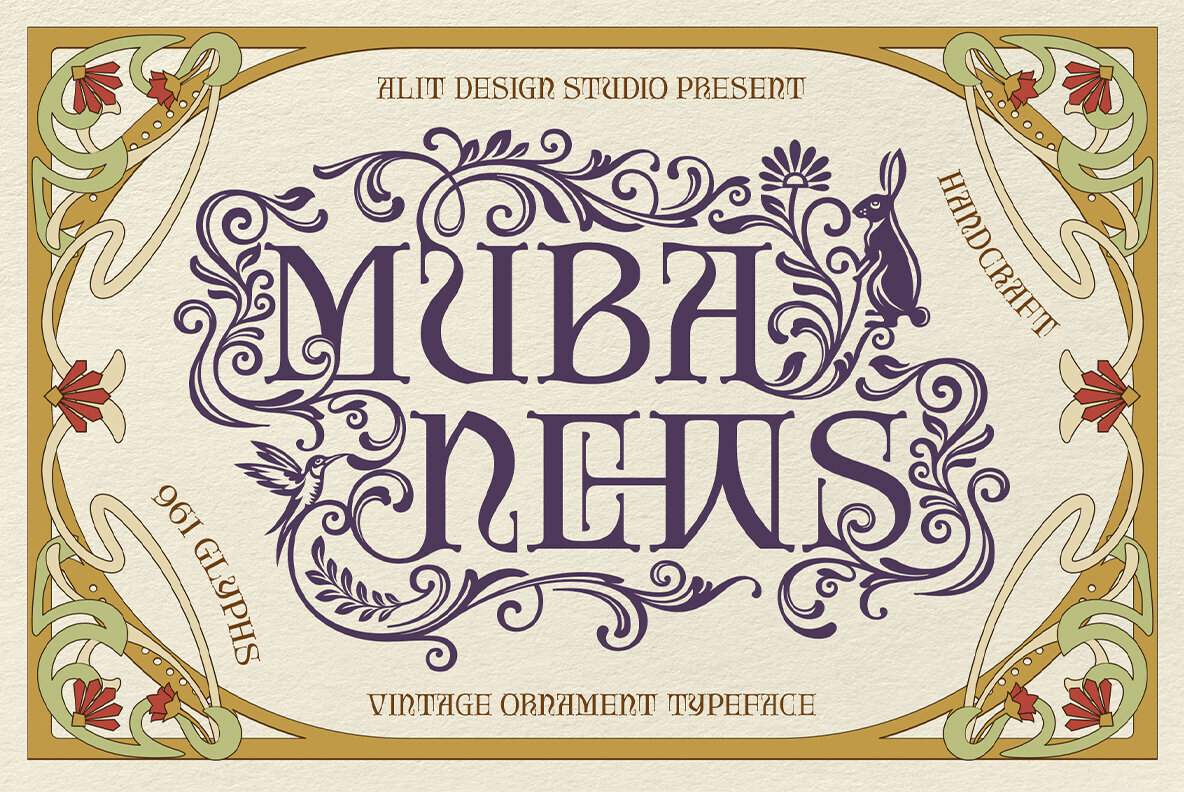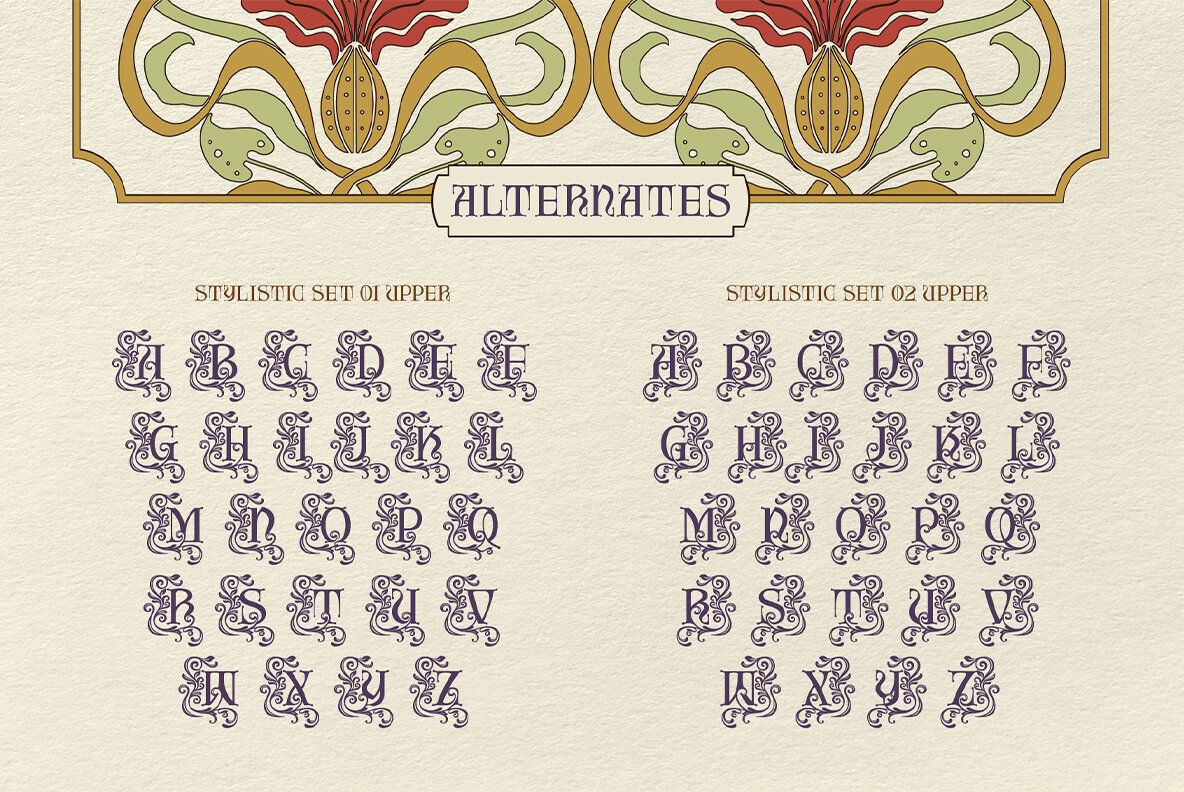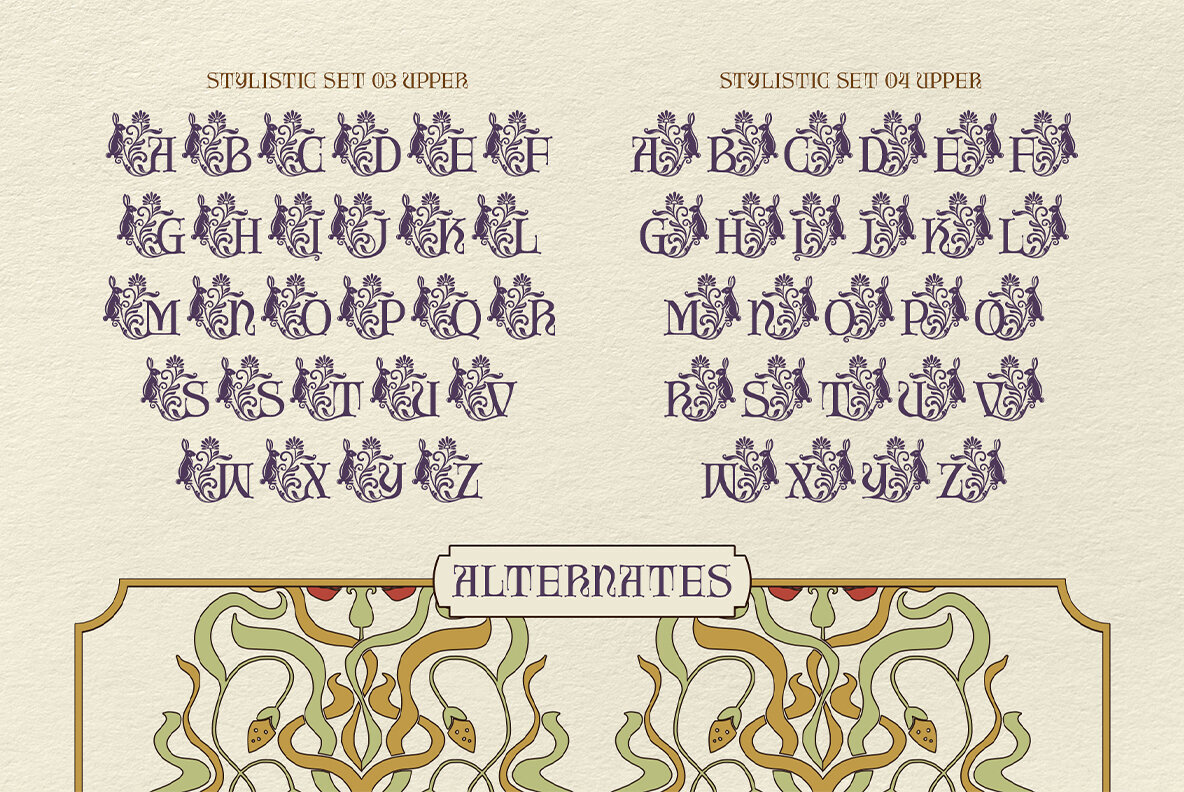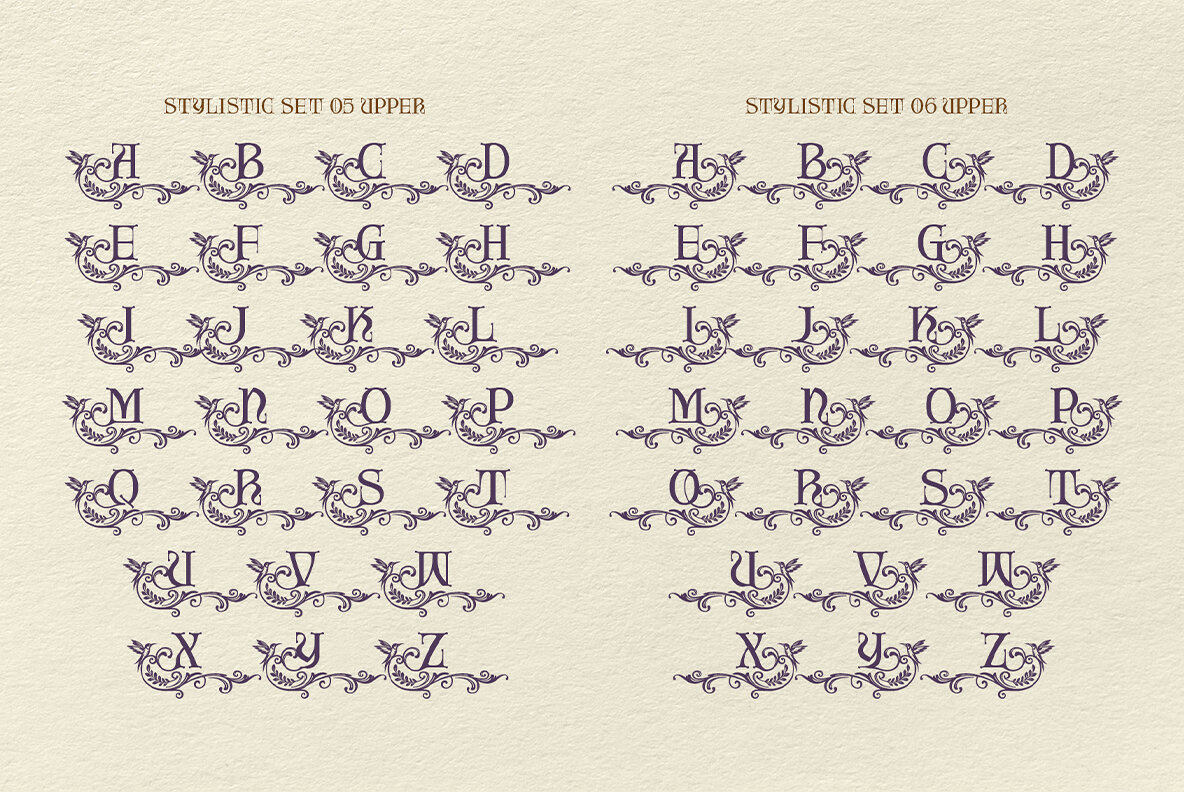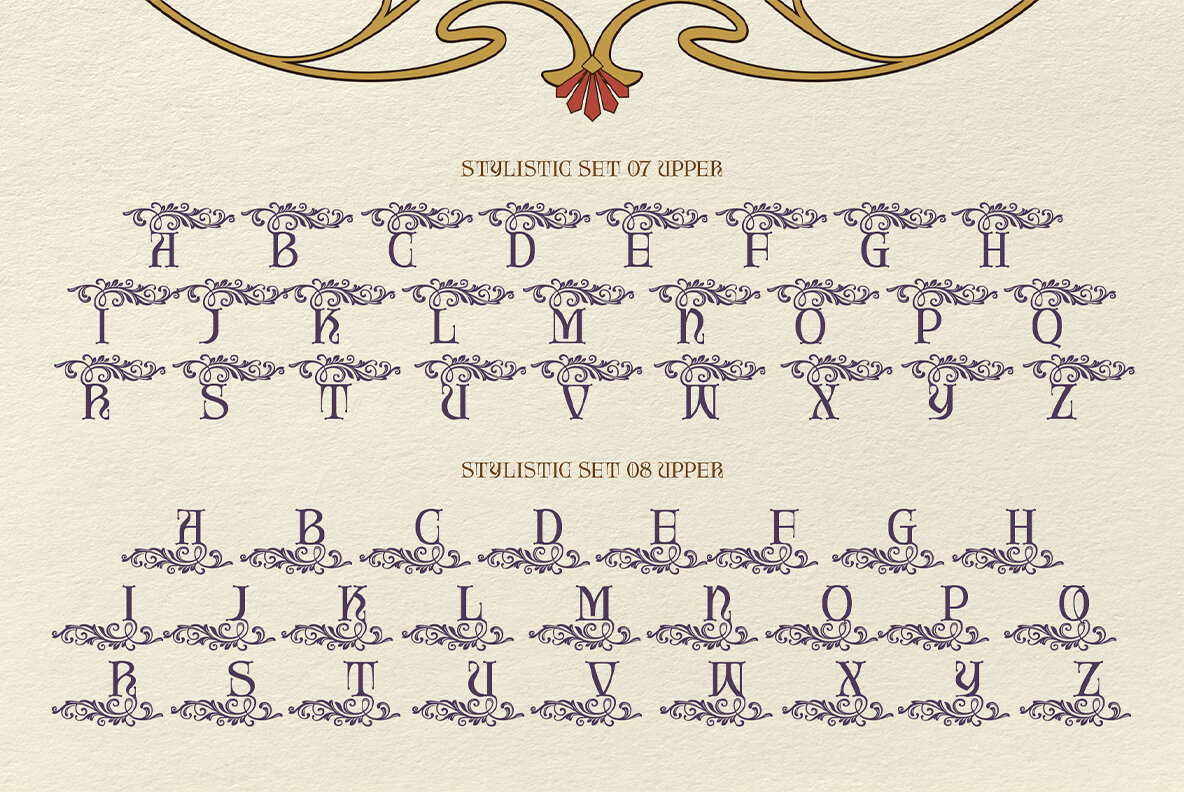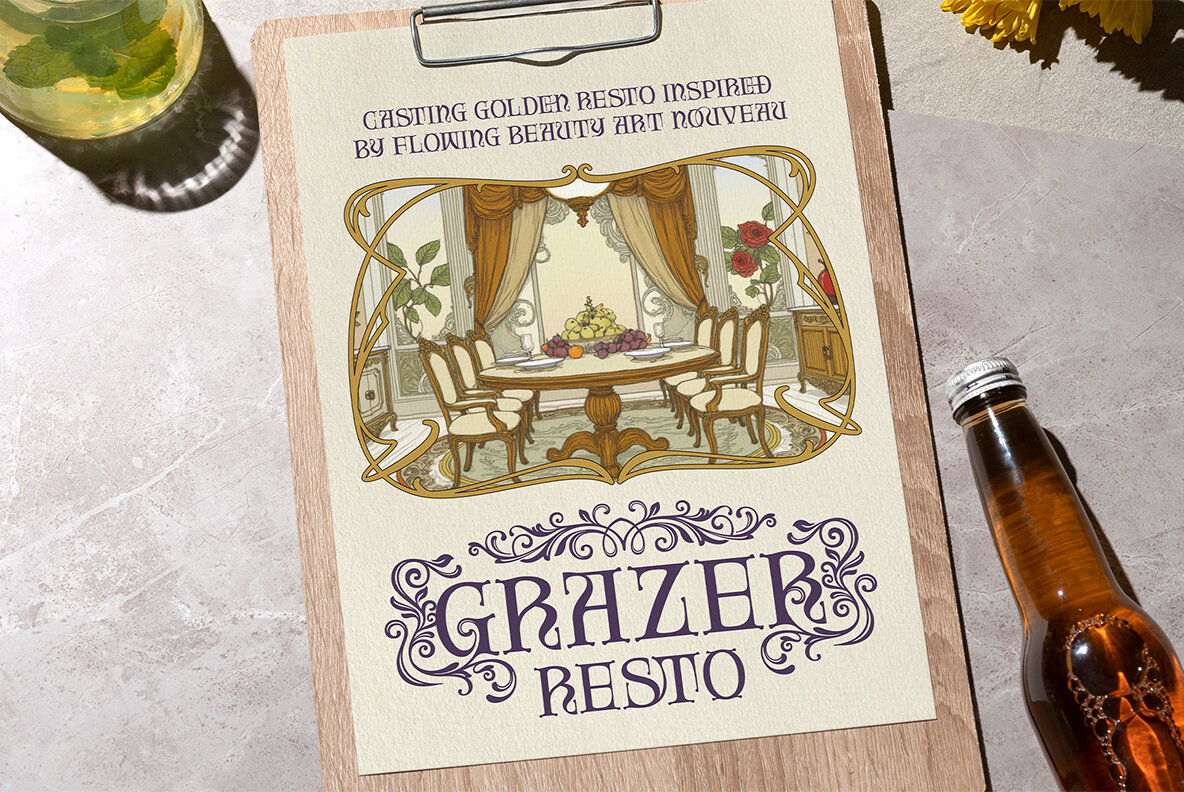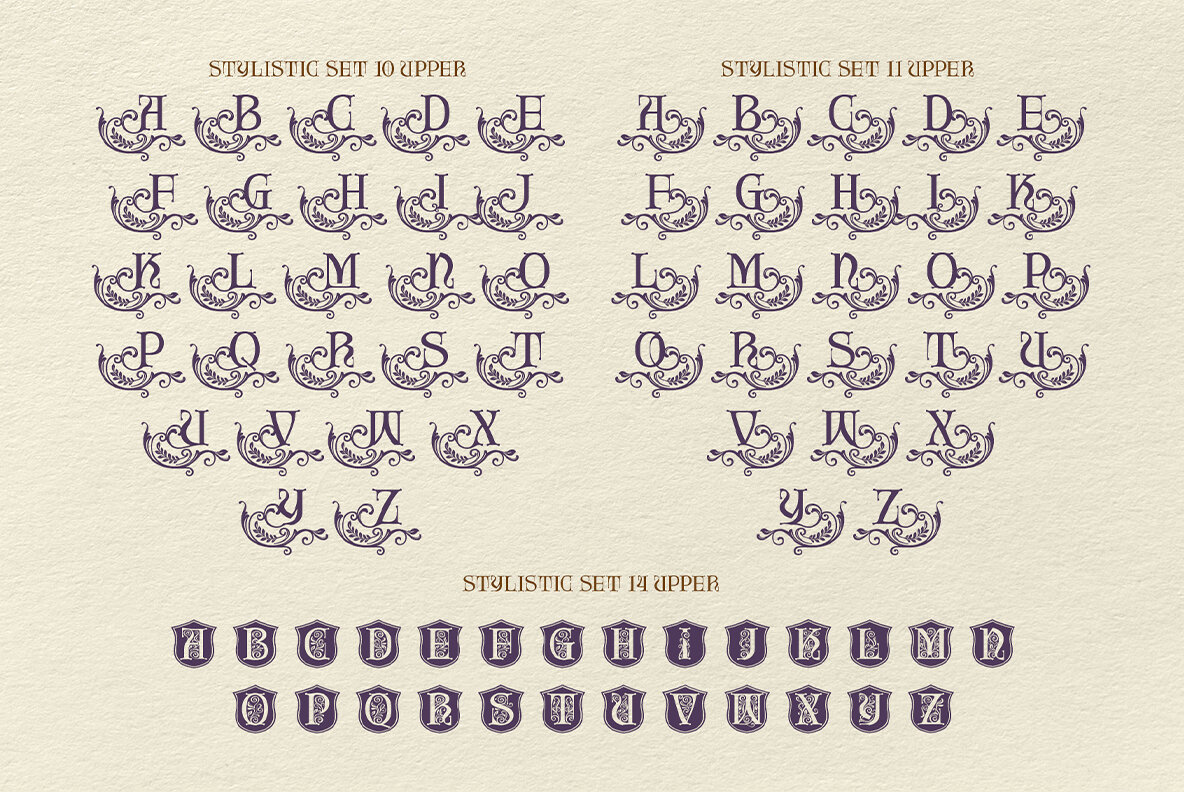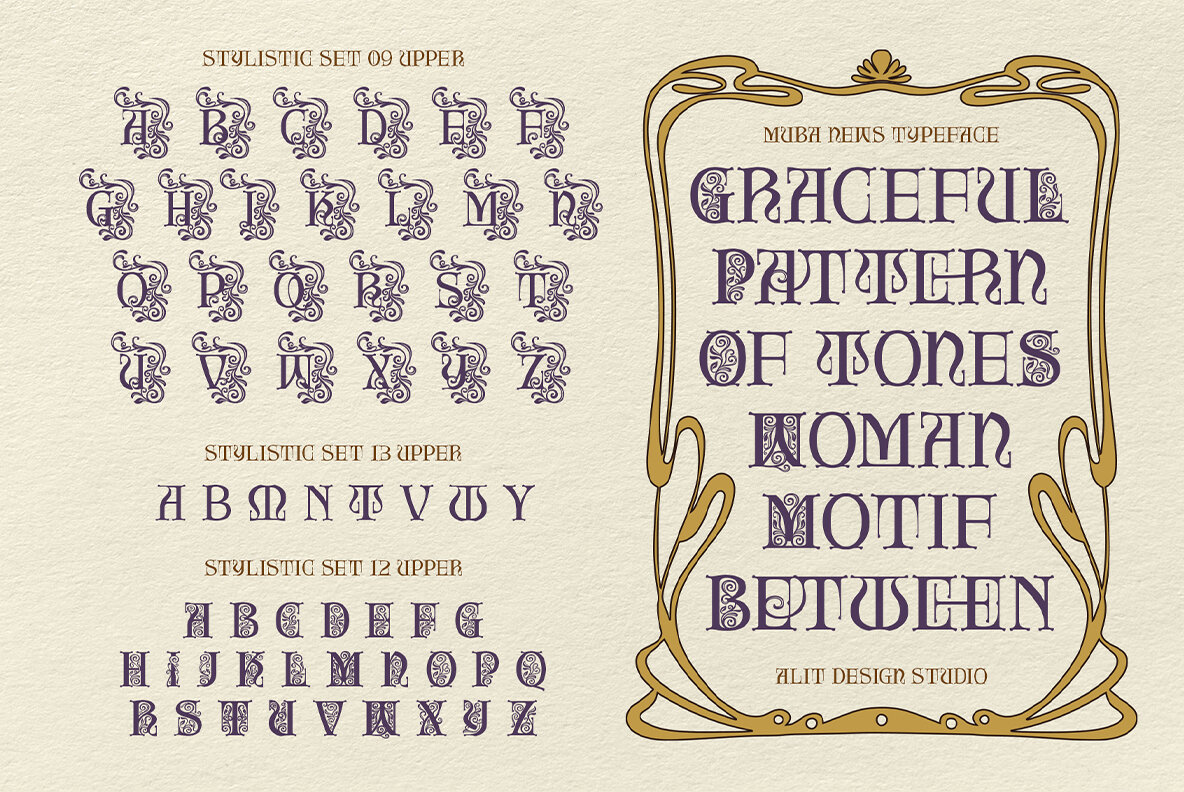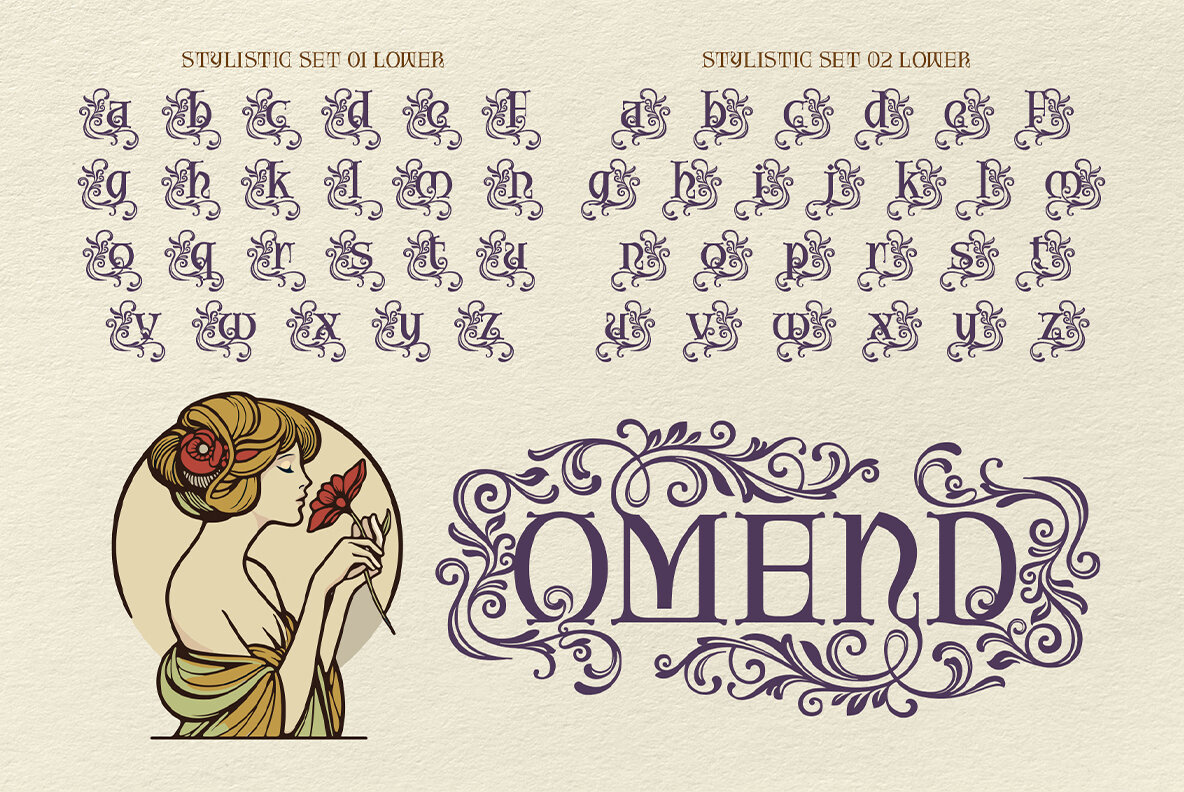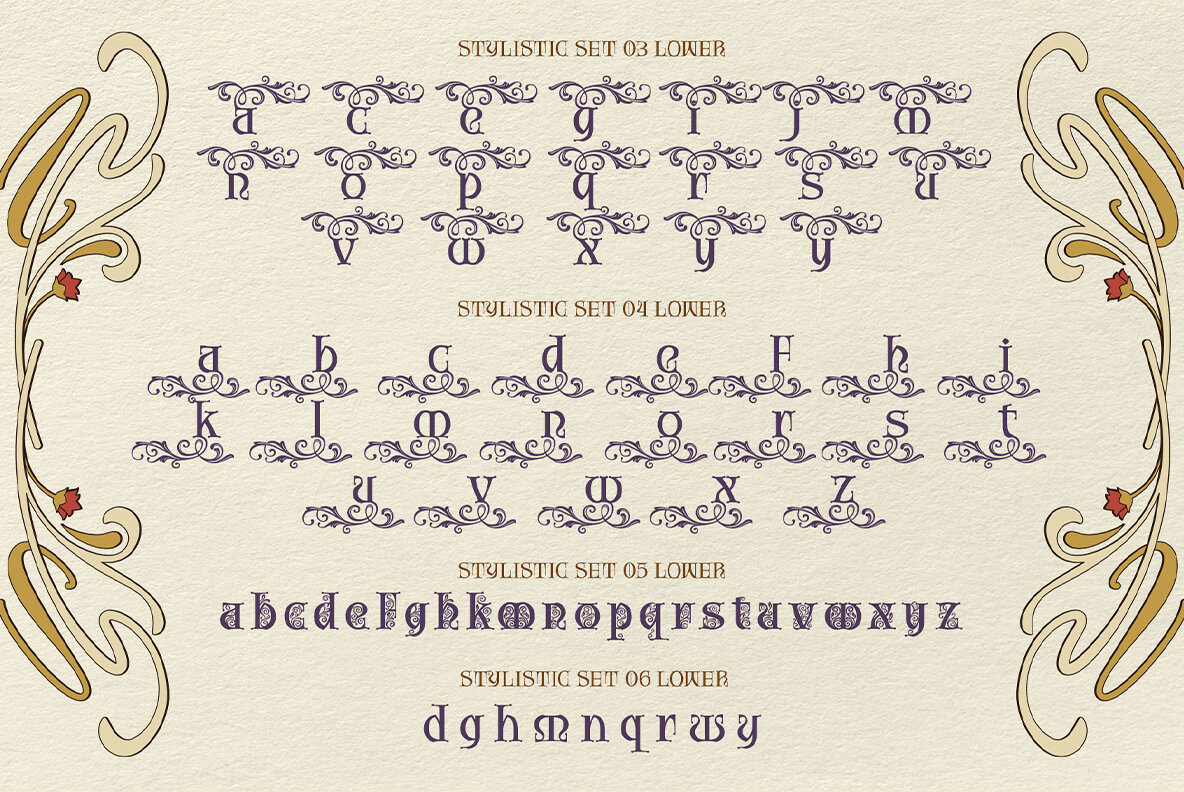
Muba News Font
Muba News Regular
Step back in time and capture the enchanting spirit of the Art Nouveau era with Muba News, a breathtakingly detailed vintage ornament typeface. This font, a masterpiece of design, is meticulously crafted to bring the organic elegance and intricate beauty of the late 19th and early 20th centuries to your modern creations. Inspired by graceful, flowing lines, Muba News weaves together delicate vines, blooming florals, and whimsical creatures into a harmonious typographic symphony. Every character is a work of art, featuring sweeping curves and ornate details that evoke a sense of timeless romance and sophisticated charm. It's perfect for storytelling, creating a world where every word is wrapped in beauty. Embrace nature, elegance, and timeless beauty with Muba News, the voice of your most enchanting creations.Muba News Typeface: An Elegant Art Nouveau Journey